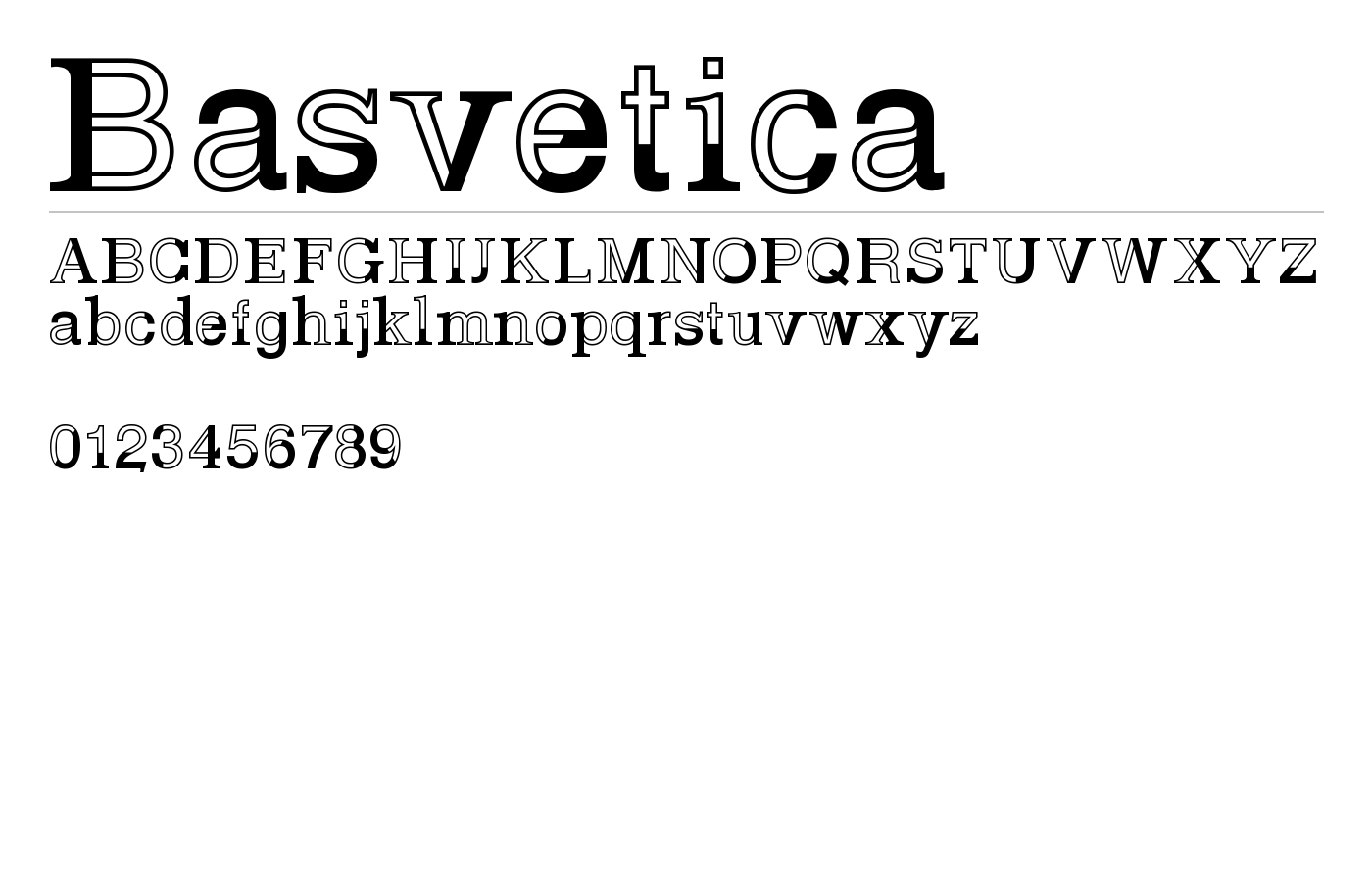
Basvetica is a creative serif font that combines a classic slab serif structure with an outlined, layered design, giving it a bold and distinctive personality. Its medium weight and high contrast strokes paired with detailed letterforms make it ideal for eye-catching headlines, logos, and packaging where a mix of vintage charm and modern flair is desired. This font’s unique interplay of solid and outlined characters adds visual interest and sophistication, perfect for brands seeking a playful yet refined look.
Basvetica Font